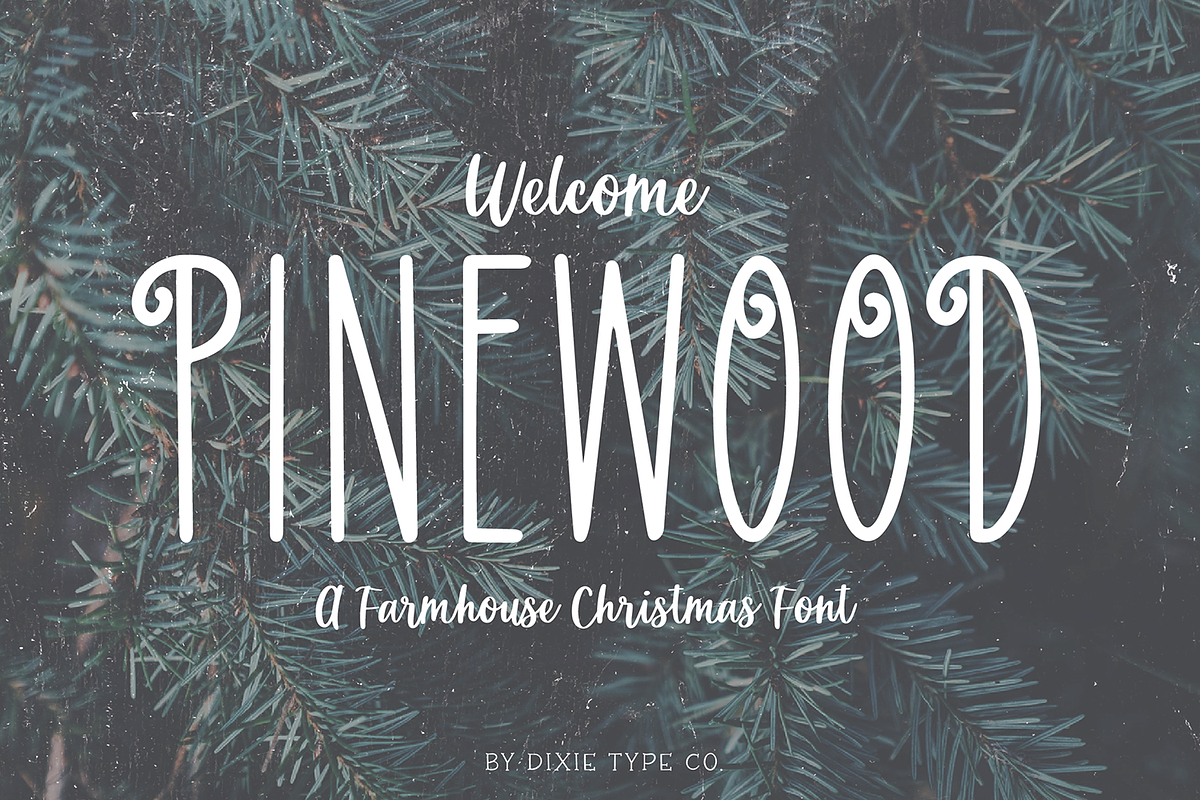
PINEWOOD Farmhouse Christmas Font Free Download is a cozy, rustic typeface that brings the warmth of the holiday season straight into your designs. With its charming farmhouse style and festive feel, this font is perfect for Christmas cards, seasonal signs, home decor prints, gift tags, and everything in between. Its handcrafted look pairs beautifully with both vintage and modern holiday themes.
Whether you're creating DIY crafts, branding for a holiday shop, or festive social media graphics, PINEWOOD adds just the right touch of Christmas cheer. You’re welcome to test it out for free, but remember that commercial use does require a proper license.
Celebrate the season in style with PINEWOOD Farmhouse Christmas Font Free Download and bring rustic elegance to your holiday projects. From cozy cabin vibes to farmhouse chic, this font wraps your designs in festive charm.